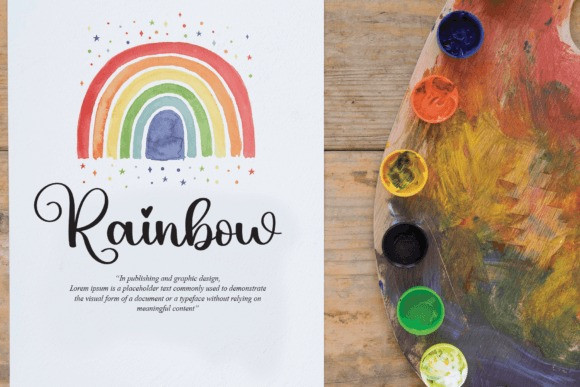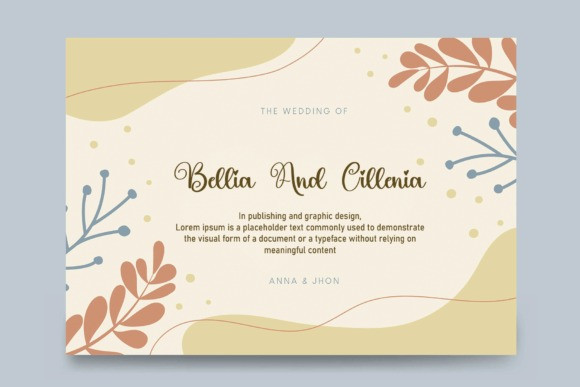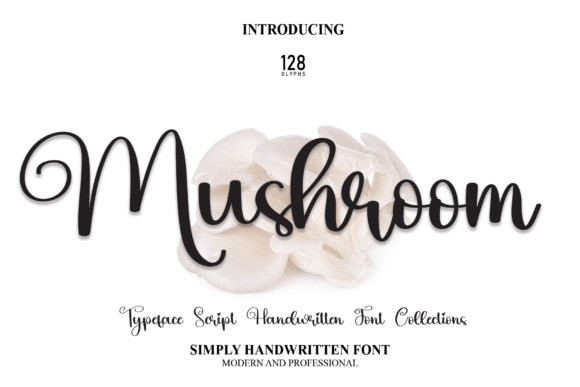
Mushroom Font
Mushroom Font latest style letters are perfect for wall displays, wedding invitations, social media post logos, advertisements, product packaging, product designs, labels, photography, watermarks, invitations, stationery, and any project that requires a handwritten taste.